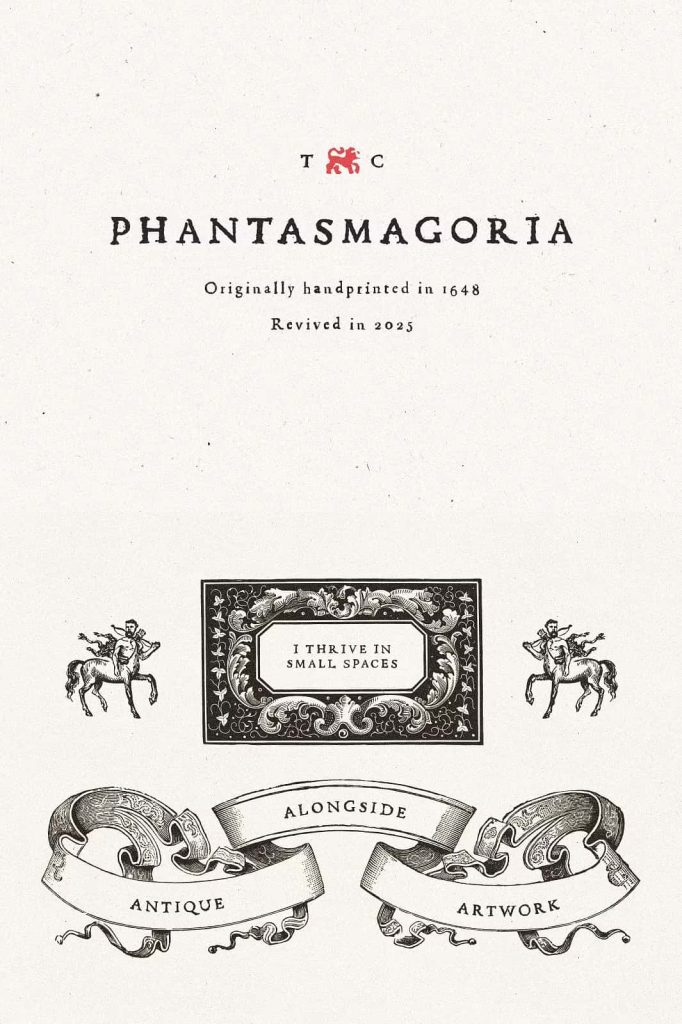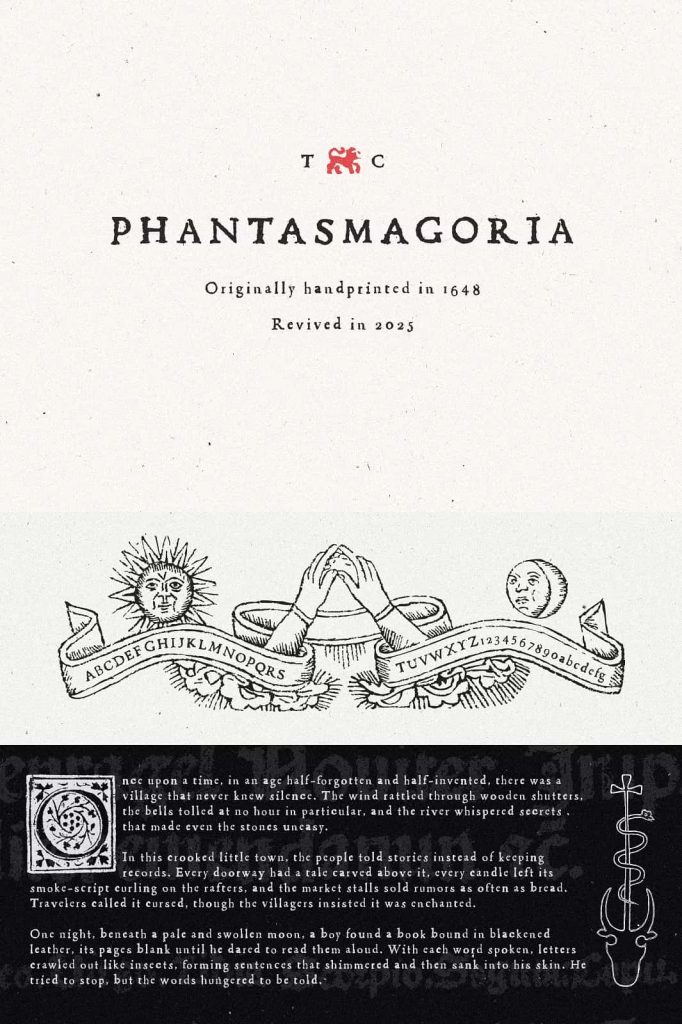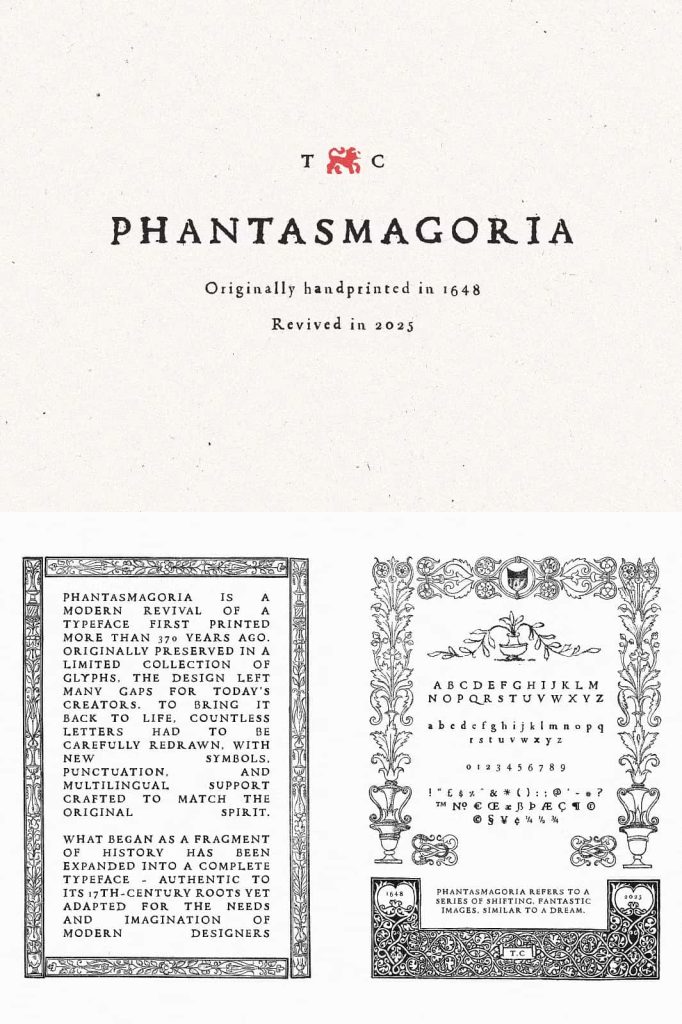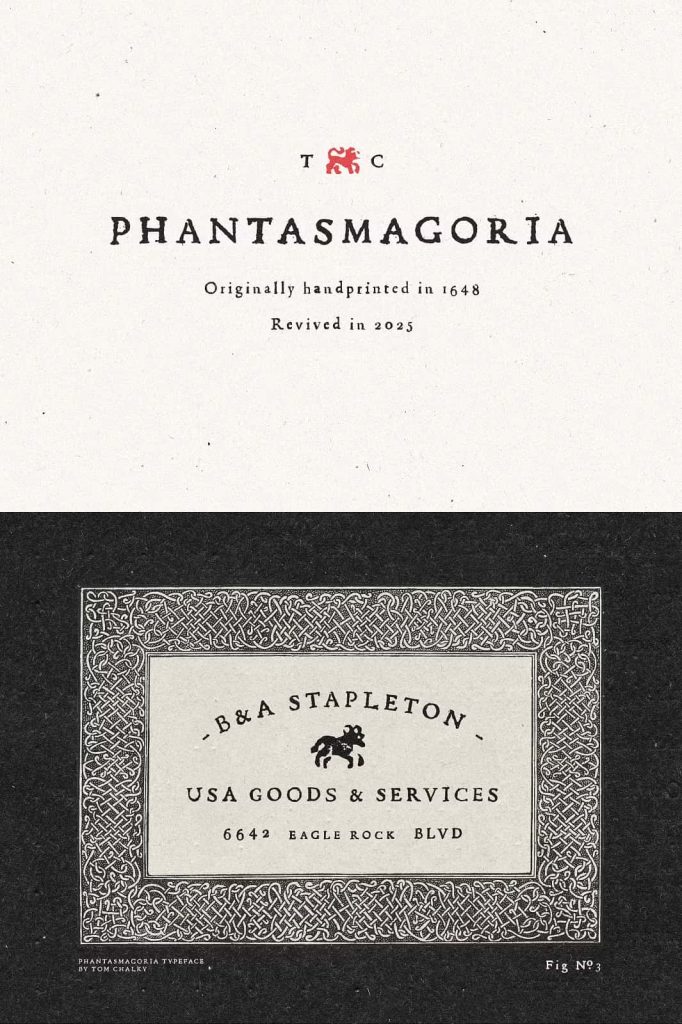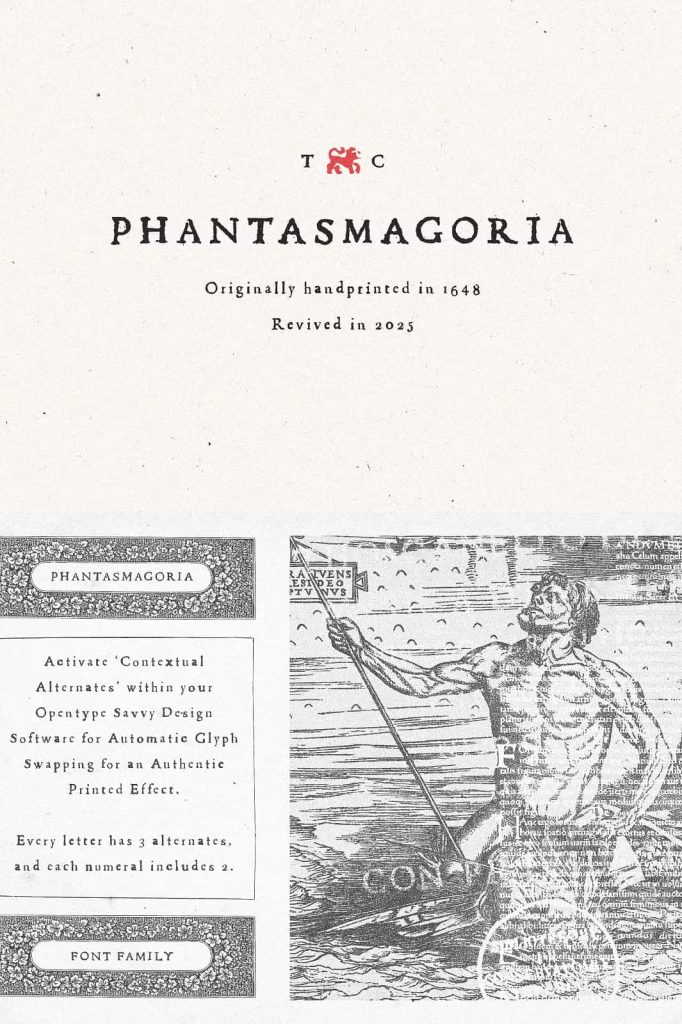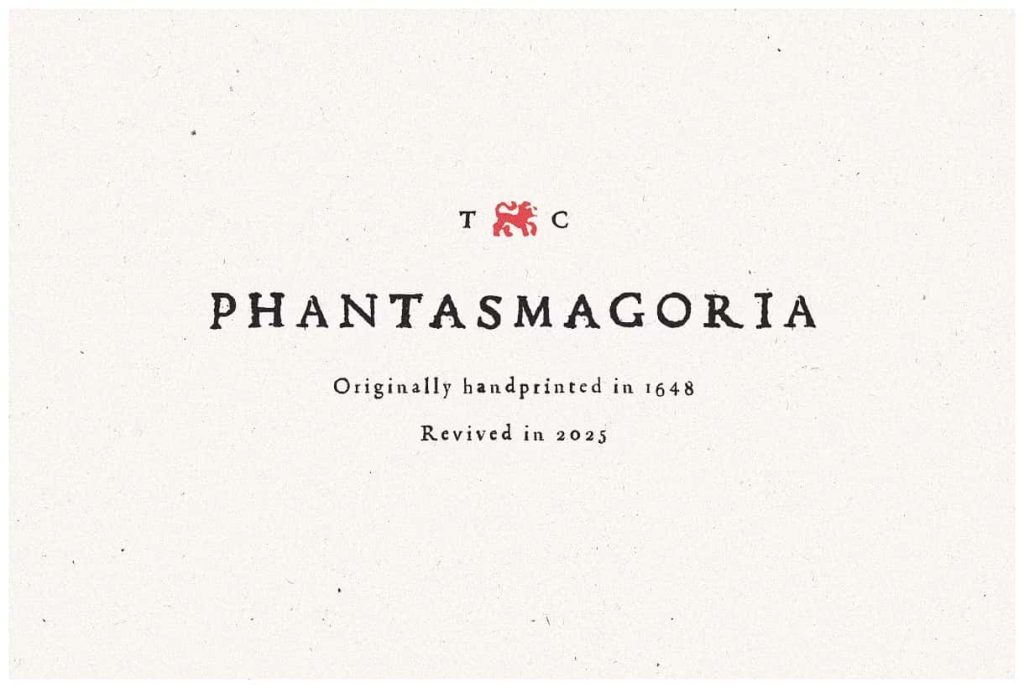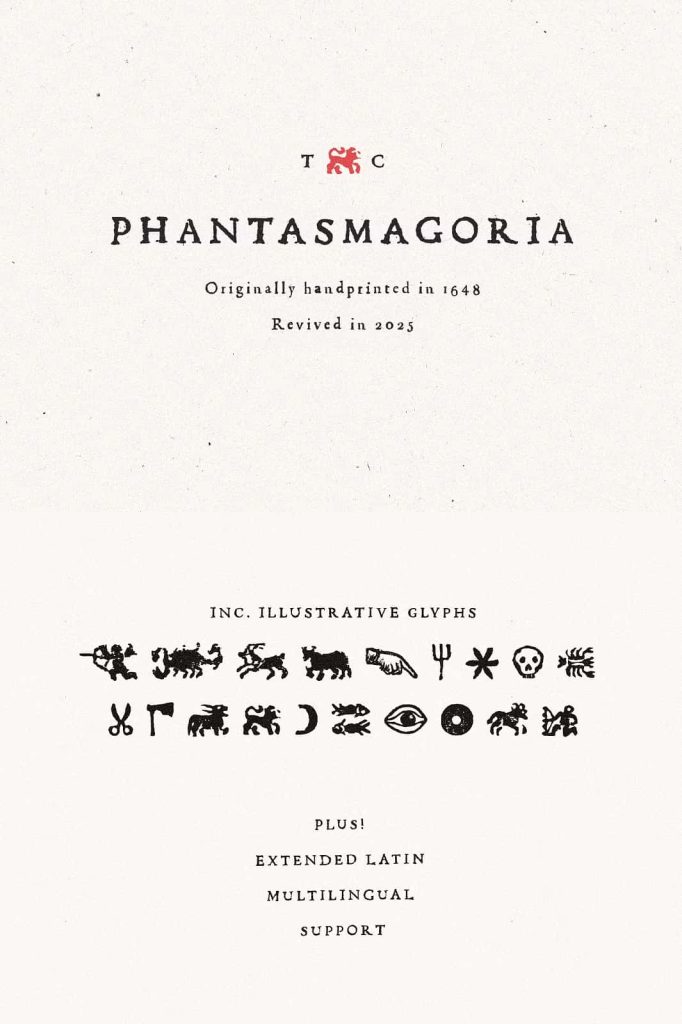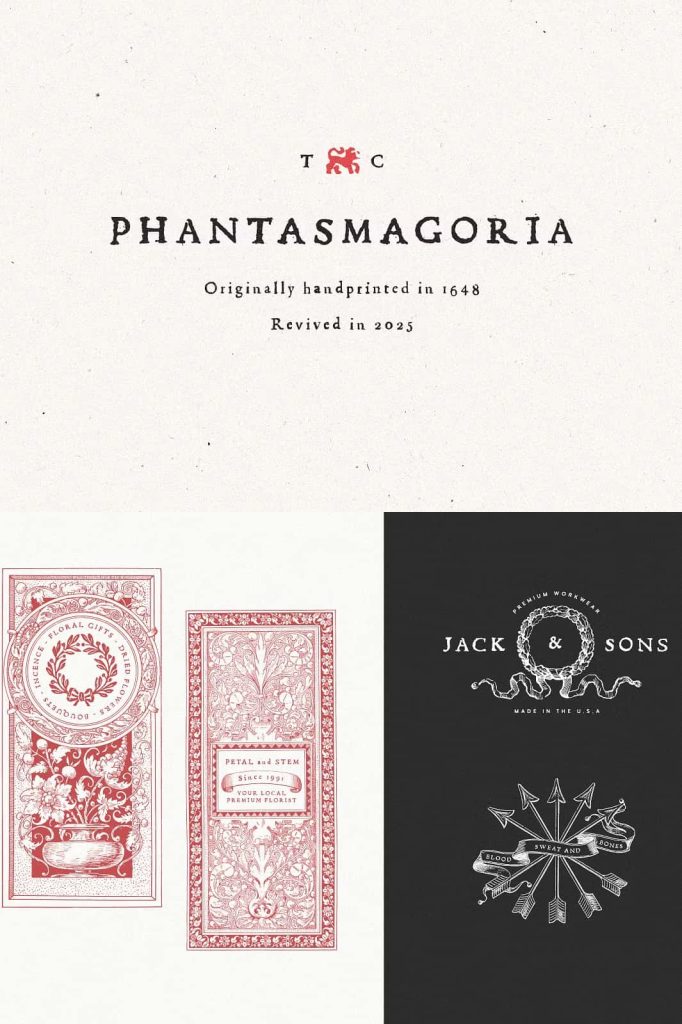
Phantasmagoria – Revived from the 17th Century
First printed back in 1648 and carefully brought back to life in 2025, Phantasmagoria is more than just a typeface – it’s history you can use. Every letter was lifted from genuine antique prints, restored with care, and adapted for modern design. To keep that authentic hand-pressed feel, each character comes with three alternates that swap automatically, so no two words ever look quite the same.